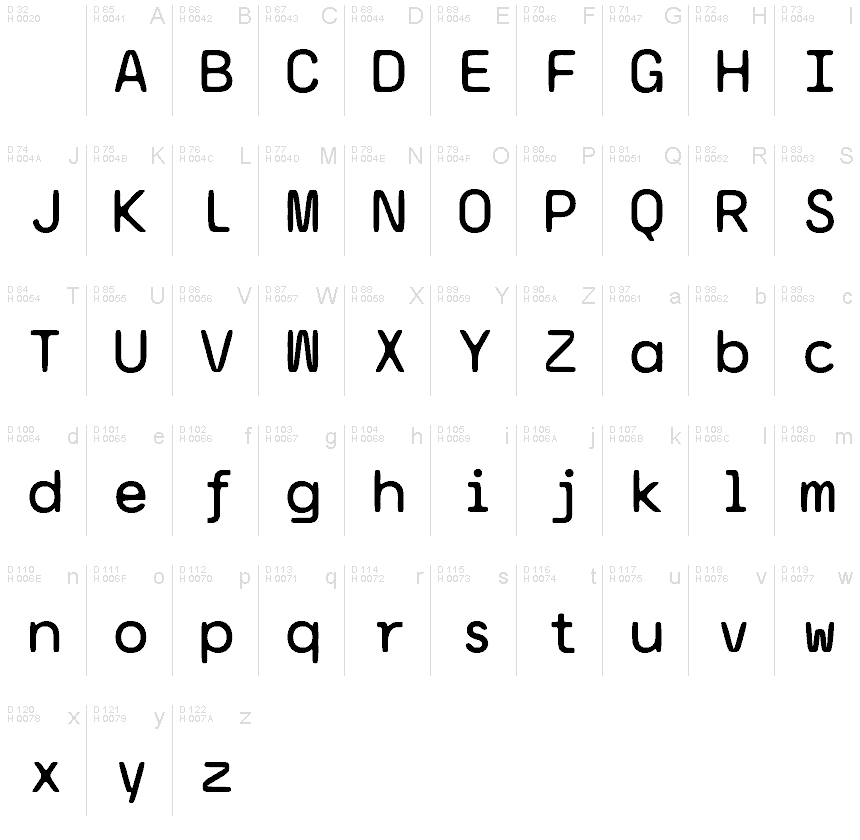
CSFeliceMonoDrawn-Regular Demo
CS Felice Mono Drawn font has been designed by Craft Supply Co. The typeface is sans serif, clean, modern yet the outlines have a slightly rounded appearance for an approachable and versatile look. This free font has a neat drawing with no visible decorations or other unimportant elements which might spoil its professional style.